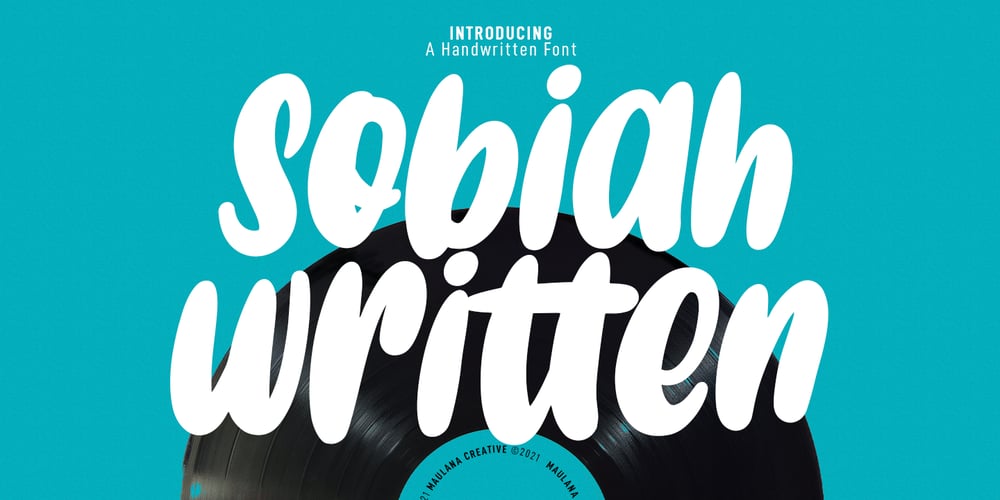
Sobiah Written Font Family was designed by Gilang Maulana and published by Maulana Creative. Sobiah Written contains 1 styles and family package options. Sobiah Written is a bulb handwritten display font. With bold stroke, fun character with a bit of ligatures and has a two files lowercase alternates. To give you an extra creative work. Sobiah Written font support multilingual more than 100+ language. This font is good for logo design, Social media, Movie Titles, Books Titles, a short text even a long text letter and good for your secondary text font with sans or serif. Make a stunning work with Sobiah Written font. Cheers, MaulanaCreative